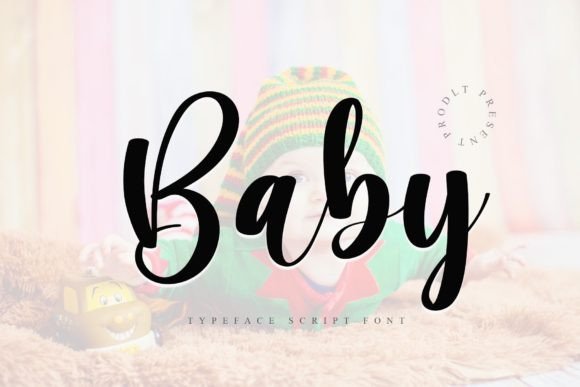
Unleashing Your Creativity with Baby Font
As a designer, have you ever stared at a blank page, waiting for the perfect font to spark your imagination? You’re not alone. Sometimes, all it takes is one special font to transport you to a world of endless possibilities. For me, that font is Baby Font. Its friendly, handwritten style has become a trusted companion in my creative journey, and I’m excited to share its magic with you.
Baby Font is more than just a pretty face – it’s a carefully crafted tool designed to add a touch of elegance and sophistication to any project. With its classy calligraphic influences and fresh, contemporary feel, it’s no wonder this font has become a favorite among designers. Whether you’re working on a wedding invitation, a children’s book, or a social media campaign, Baby Font is the perfect addition to your toolkit.
Baby Font Key Features
- Unique Characteristics: Baby Font is designed with a playful and whimsical style, featuring rounded shapes and soft lines, making it ideal for children’s books, nursery decor, and other related applications.
Baby Font Review
As a designer, I was excited to try out the “Baby Font” and see how it would work for me. Overall, I have mixed feelings about this font.
- Unique and playful style: The Baby Font has a distinct and whimsical look that’s perfect for creating a fun and youthful atmosphere.
- High legibility: Despite its playful nature, the font is highly legible, making it easy to read even in small sizes.
- Good for short texts: The Baby Font is ideal for short texts, headings, and titles, as it adds a touch of personality to the content.
- Limited versatility: The Baby Font is best suited for casual, creative projects, and may not be suitable for formal or professional work.
- May not scale well: While the font is legible at small sizes, it may lose its charm and become blurry when scaled up.
- Lack of versatility in weight and style: The font comes in only a few weights and styles, which may limit its usability in complex designs.
While the Baby Font has its charm and is perfect for certain projects, it’s not a go-to font for me. It’s a fun addition to a designer’s toolkit, but it’s not a reliable choice for complex or formal work.
Getting the Most Out of Baby Font
Here are some tips for getting the most out of Baby Font: